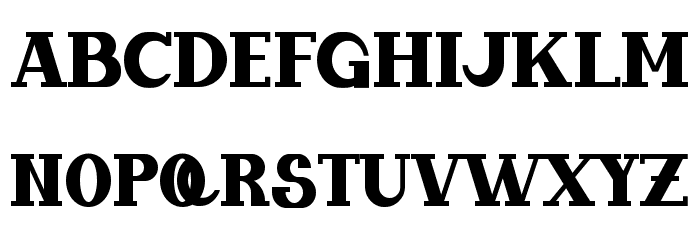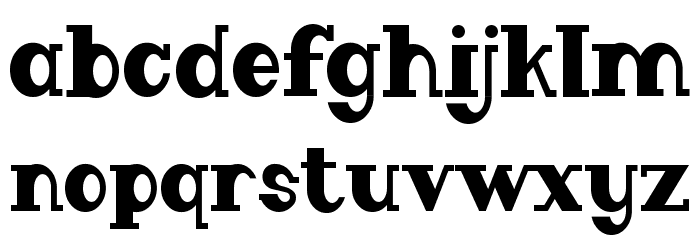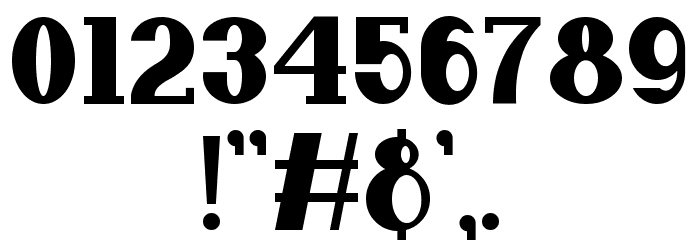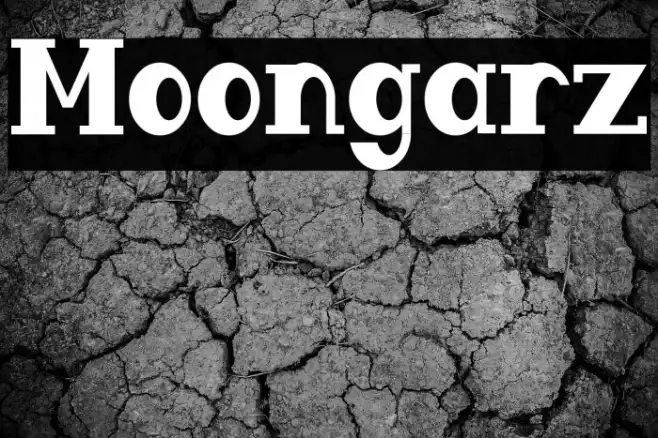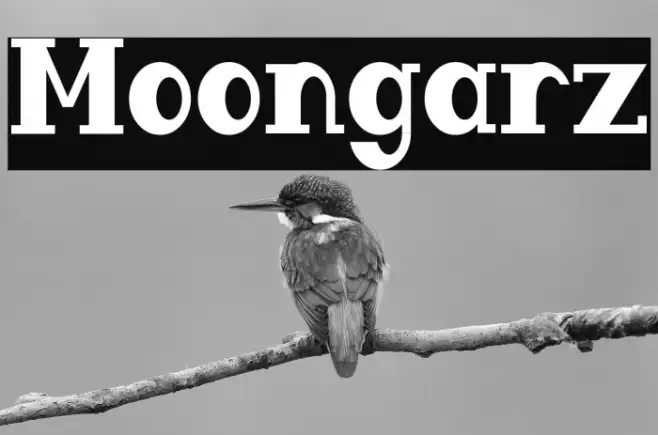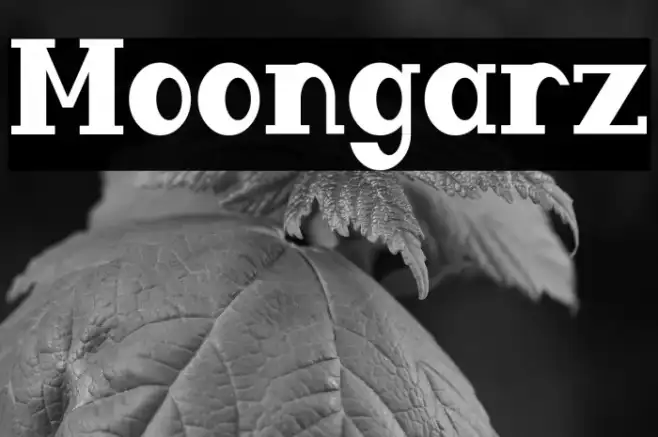
Moongarz Font
This font exhibits a bold and robust slab serif style, characterized by thick, block-like serifs that give it a strong and authoritative presence. The uppercase letters are uniform and structured, while the lowercase letters maintain a consistent weight, providing a harmonious balance. The numerals are equally bold, ensuring readability and impact. Special characters are designed with the same boldness, making them stand out. The overall design is modern yet retains a classic touch, suitable for making statements in various design contexts.
A bold slab serif font with a strong, authoritative presence.
- Proposed Projects: Ideal for headlines, posters, branding, and any project requiring a bold, impactful typeface.